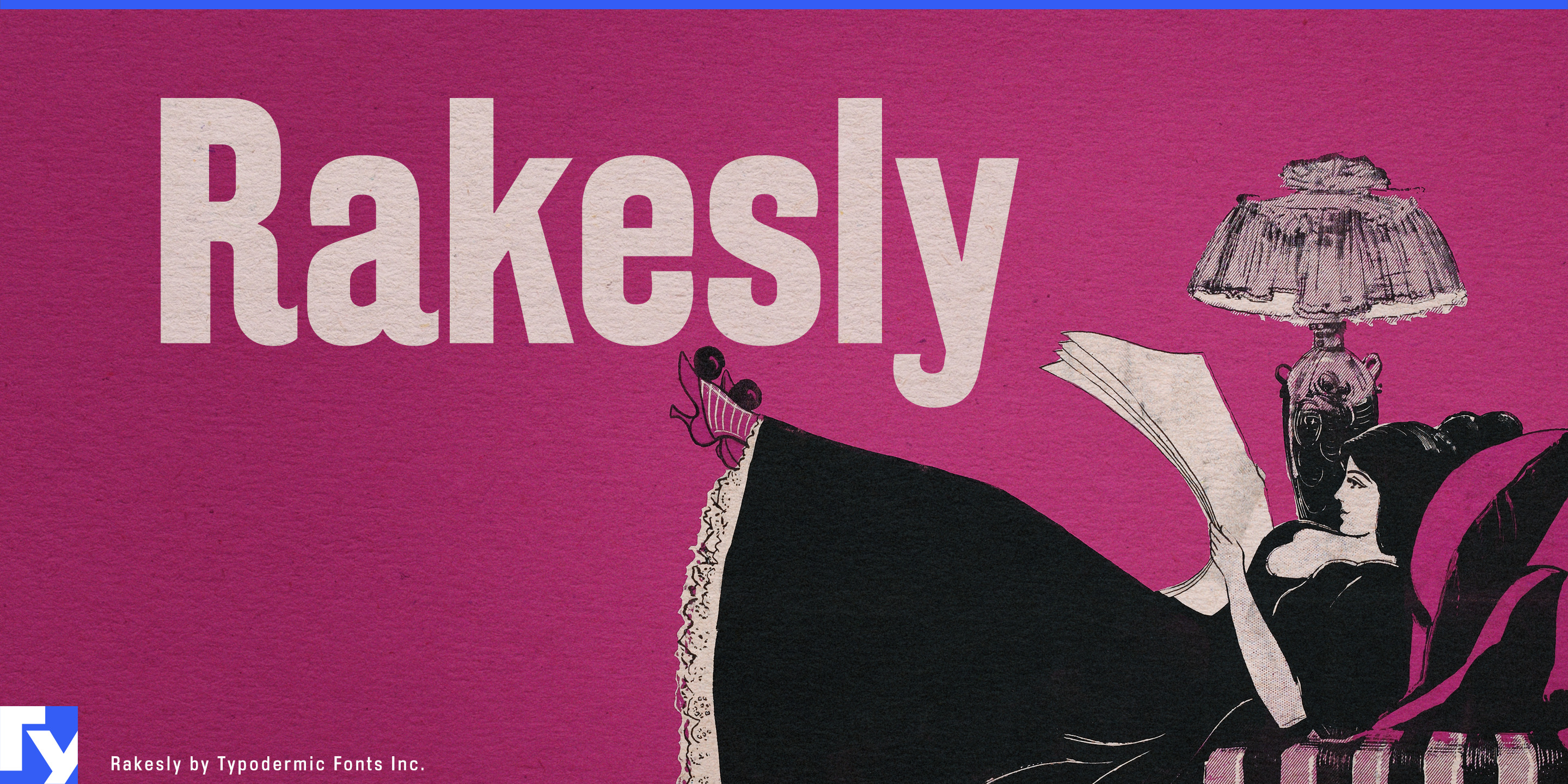
Rakesly
A lot of modern identities have to live in two places at once. One side is clean, live and constantly changing: websites, apps, interactive exhibits, configurators, digital archives and game interfaces. The other is physical or historical: packaging, archival material, merchandise and environmental graphics. Rakesly lets the surface change while the underlying identity stays recognizable.
The family combines six clean weights from Hairline through Bold, each with an italic, with four Iron styles that apply a dense weathered surface to the same structure. The clean styles can establish the working system; Iron can appear when the project needs age, grain or material presence. Instead of deciding how distressed an entire identity should be, designers can choose where the wear belongs.
Live narrative games are especially well suited to that approach. Alternate-history adventures, industrial mysteries, retro-scientific worlds, railway simulations and exploration games need clean typography for chapter navigation, map headings, equipment categories and changing interface content. Rakesly Iron can take over for discovered records, faction identities, expansion titles and worn environmental graphics while remaining visibly part of the same world.
Interactive museums and heritage destinations face a similar challenge across gallery walls, touchscreen exhibits, mobile guides, websites and digital archives. Clean Rakesly can carry section names and live digital headings; Iron can enter when the story moves into machinery, archival photographs, old print or reconstructed environments.
Heritage mobility and engineering brands can use the two states to connect past and future. Motorcycle makers, railway organizations, automotive heritage programs and long-established equipment companies may be launching new technology while also maintaining archives, anniversary collections and historic programs. Clean Rakesly can handle current model families, configurators and launch graphics; Iron can mark archive editions, provenance stories and commemorative merchandise.
Streaming factual entertainment, workwear brands with digital archives and multi-format publishing can use the same principle. Current information stays clean and repeatable; historical chapters, collector editions, garment tags and archival inserts can pick up texture without introducing an unrelated retro face.
The Iron effect is digitally constructed rather than a literal reproduction of letterpress impressions, allowing it to function as a strong visual layer without pretending to be an artifact.
Rakesly is for identities that need two states: one for the live system, one for the material memory. The clean styles keep changing content coherent; Iron lets selected moments acquire age, grain and physical presence without changing typographic identity.